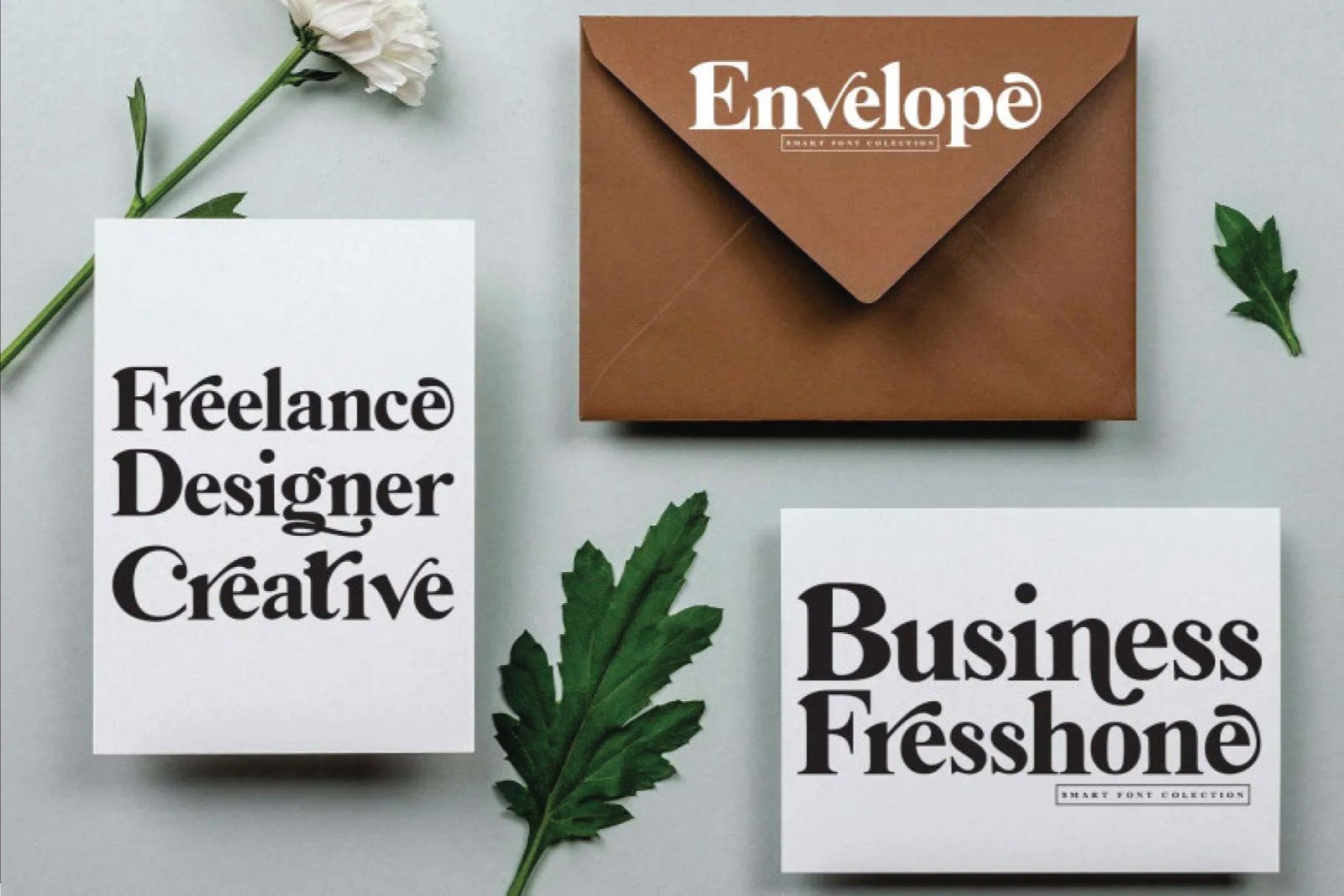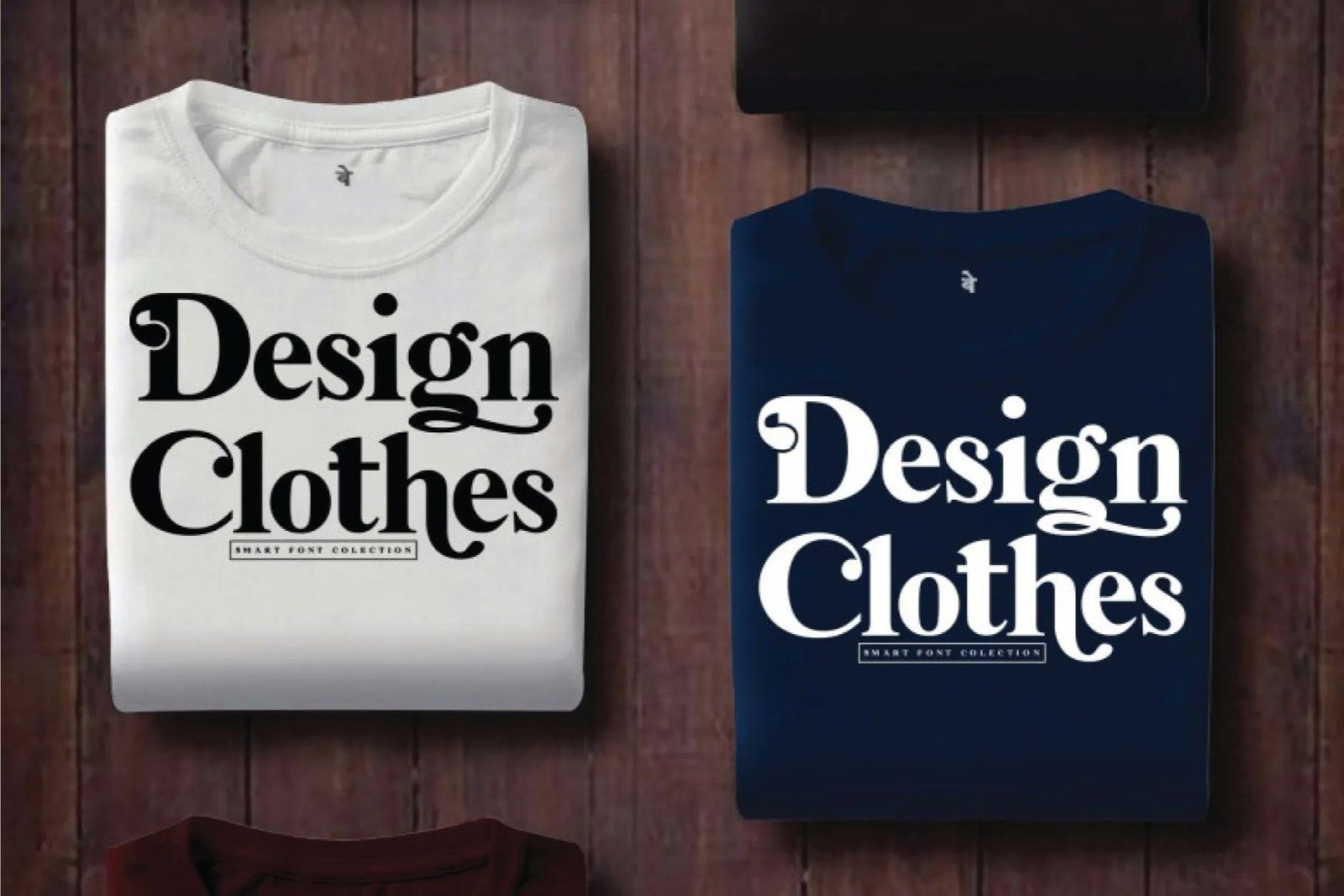
The latest Amboqia Boriango font works well for inviting weddings through posts or advertisements on social media platforms and additionally for creating logos and product designs and labeling and adding watermarks.